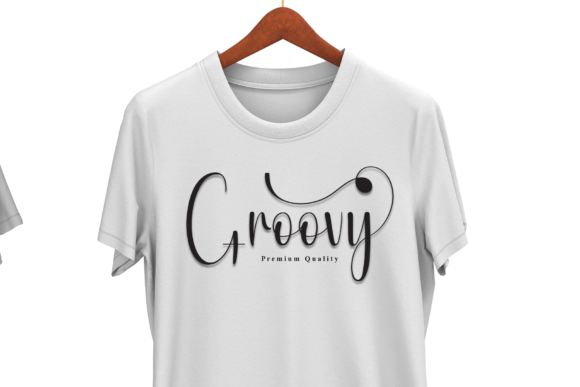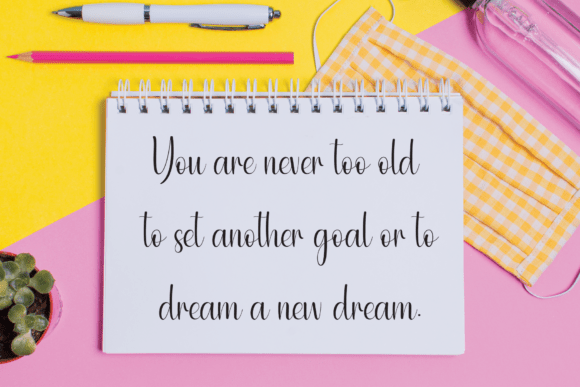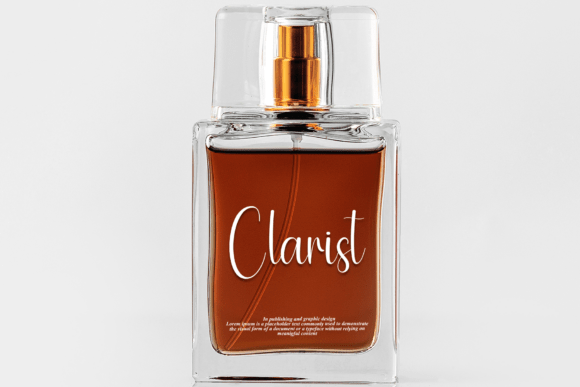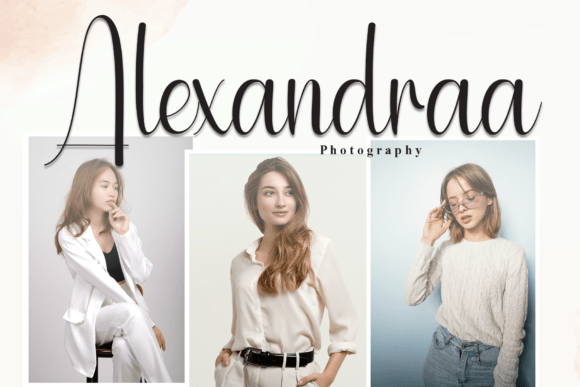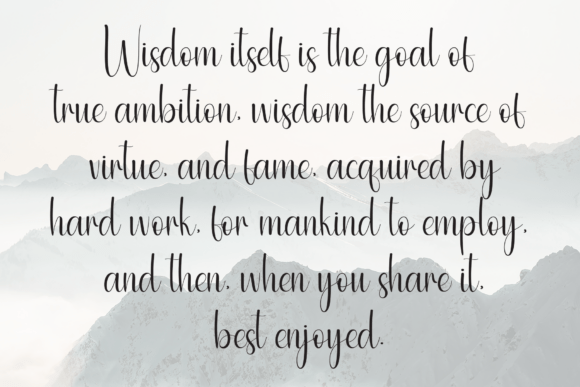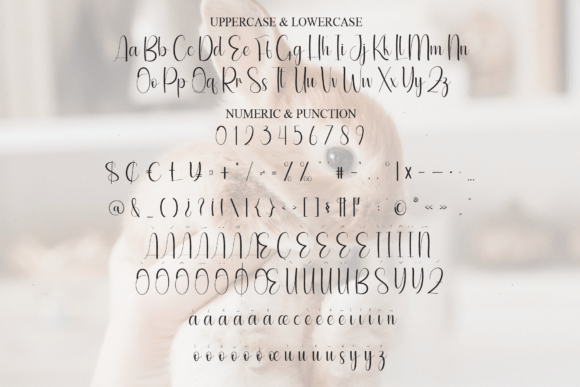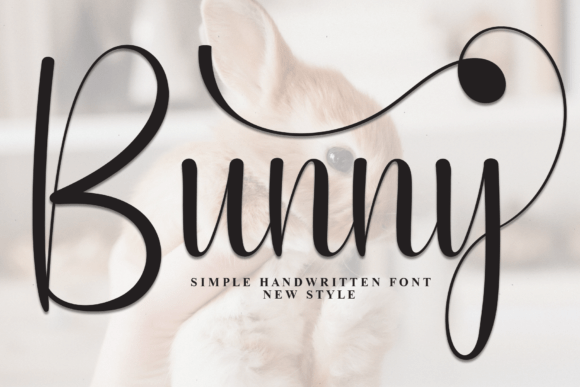
Bunny Font: Elevate Your Designs with a Touch of Whimsy and Sophistication
In the world of typography, fonts play a pivotal role in conveying the tone and personality of a design. Among the myriad of typefaces available, the Bunny Font stands out for its unique blend of modern elegance and playful charm. This stylish handwritten script font is designed to bring a personal touch to any project, making it an excellent choice for designers and crafters looking to infuse their work with warmth, sophistication, and creativity.
The Essence of Bunny Font
Bunny Font is characterized by its fluid strokes and charming curves, which work harmoniously to create a visually appealing and approachable feel. This typeface is not just about aesthetics; it’s about evoking emotions and creating connections. Whether you’re working on a logo, packaging, or an invitation, Bunny Font is versatile enough to adapt to various design needs while maintaining its distinctive flair.
Key Features of Bunny Font
- Modern Elegance: Bunny Font boasts a contemporary look that can elevate any design, making it suitable for brands and projects aiming for a sophisticated image.
- Playful Touch: The playful elements of the font ensure that the designs do not feel too formal or stiff, adding a layer of approachability and fun.
- Fluid Strokes and Charming Curves: These characteristics contribute to the font’s friendly and dynamic feel, making it perfect for designs that require a personal touch.
- Versatility: Bunny Font can be used across various platforms and design materials, including but not limited to logos, packaging, invitations, and digital content.
Applications of Bunny Font
The versatility of Bunny Font makes it an invaluable asset for designers and crafters working on a wide range of projects. Here are some of the ideal applications:
- Logos: Create memorable and impactful logos that stand out with the unique charm of Bunny Font.
- Packaging: Add a personal and sophisticated touch to product packaging, making it more appealing to potential customers.
- Invitations: Whether it’s a wedding invitation, a birthday party invite, or any other celebration, Bunny Font can add a touch of elegance and playfulness.
- Digital Content: Enhance your website, blog, or social media content with Bunny Font, making your digital presence more engaging and distinctive.
Why Choose Bunny Font?
In a sea of typefaces, Bunny Font offers a unique combination of style, charm, and versatility. Here are a few reasons why it stands out:
- Unique Personality: Bunny Font brings a distinct personality to your designs, setting them apart from more generic or common typefaces.
- Easy to Read: Despite its elegant and playful nature, Bunny Font maintains readability, ensuring your message is conveyed clearly.
- Customizable: The font’s flexibility allows for various design manipulations, enabling you to tailor it to your project’s specific needs.
Bunny Font is more than just a typeface; it’s a design companion that can transform your projects with its modern elegance and playful charm. Whether you’re a professional designer or a crafter, this font offers a simple yet effective way to add depth, warmth, and sophistication to your work. With its wide range of applications and distinctive features, Bunny Font is poised to become a go-to choice for those looking to make a lasting impression through their designs.
So, why settle for ordinary when you can make your designs extraordinary with Bunny Font? Explore its potential, and let your creativity shine with a touch of whimsy and sophistication.